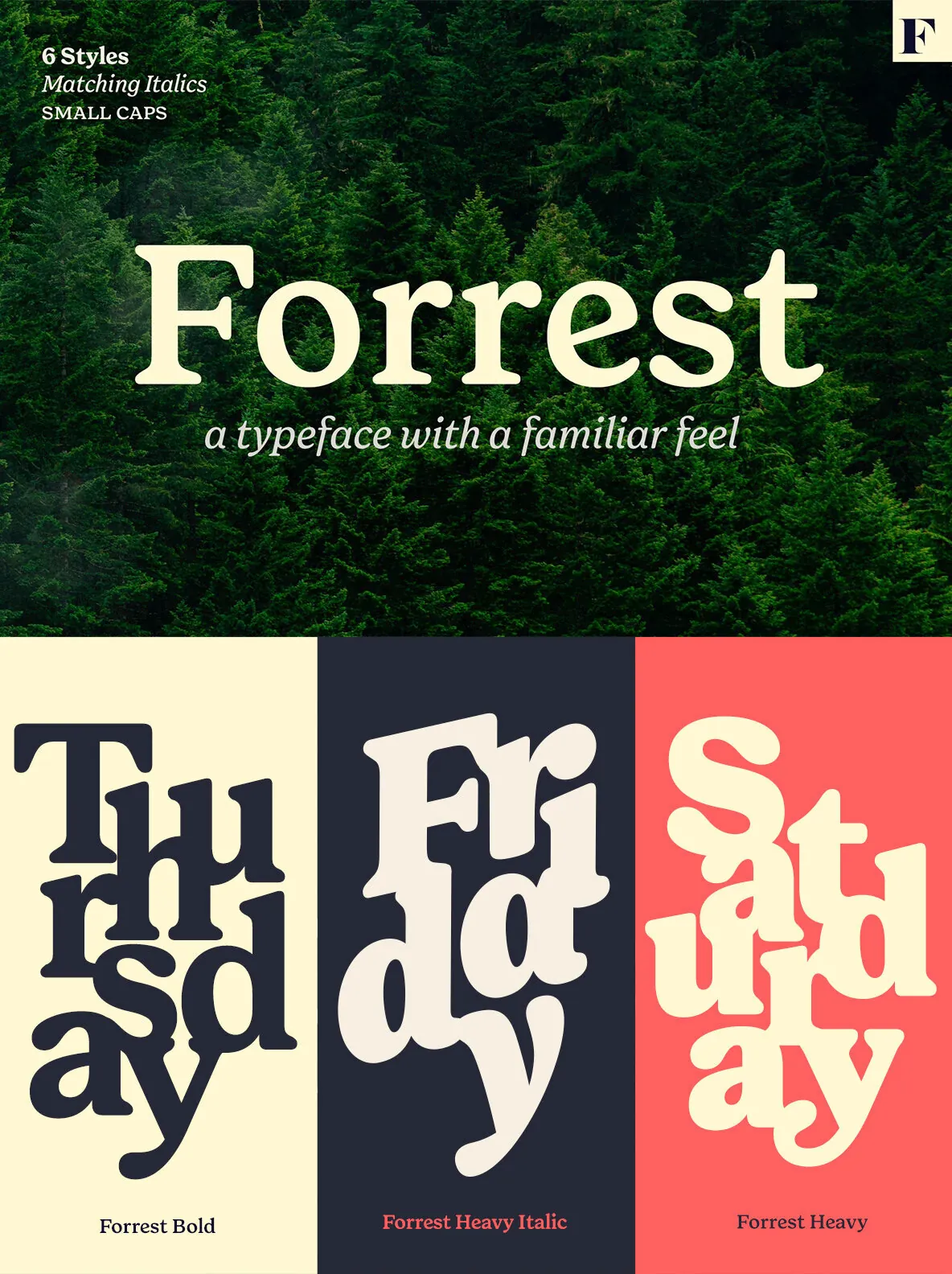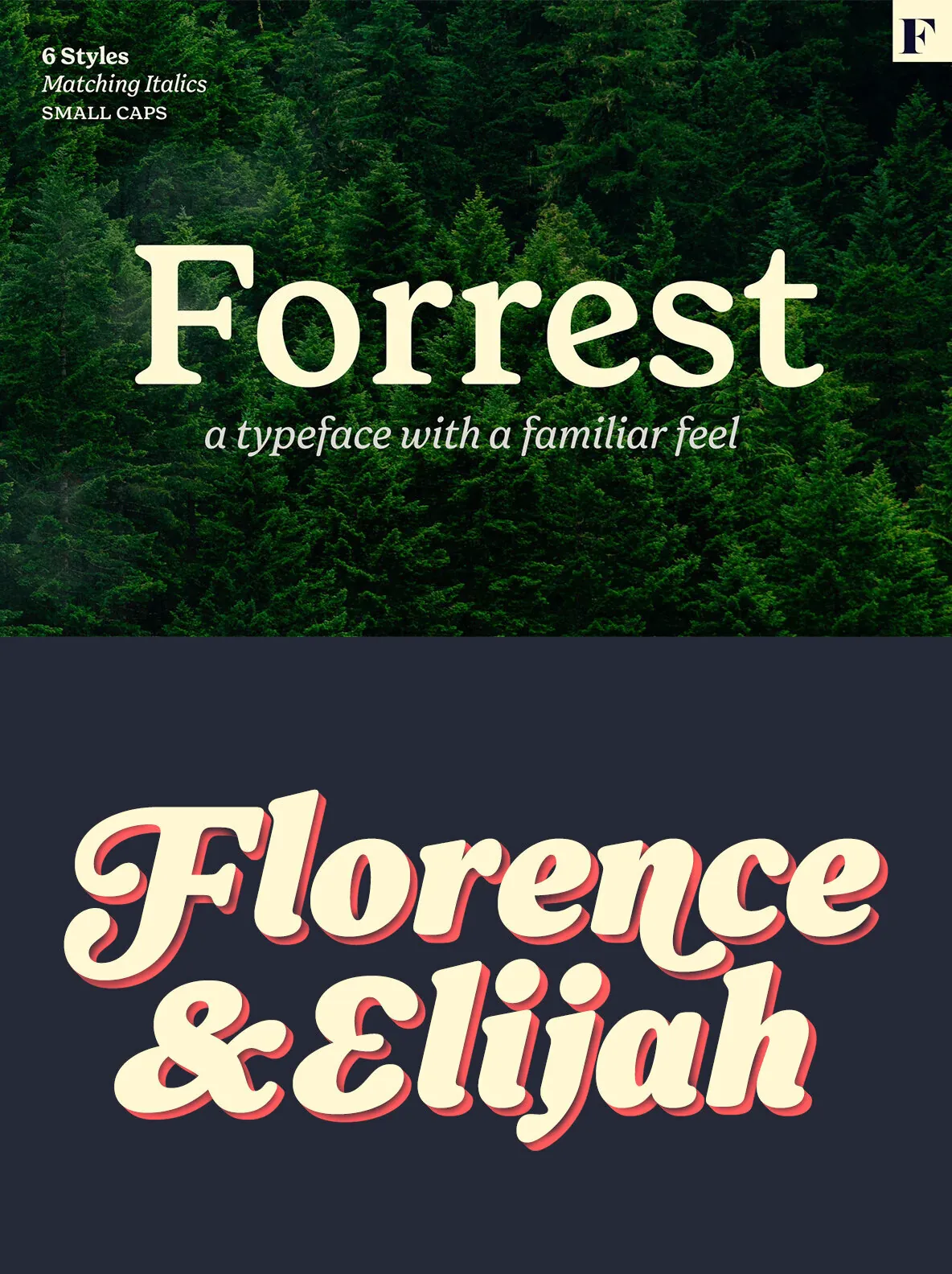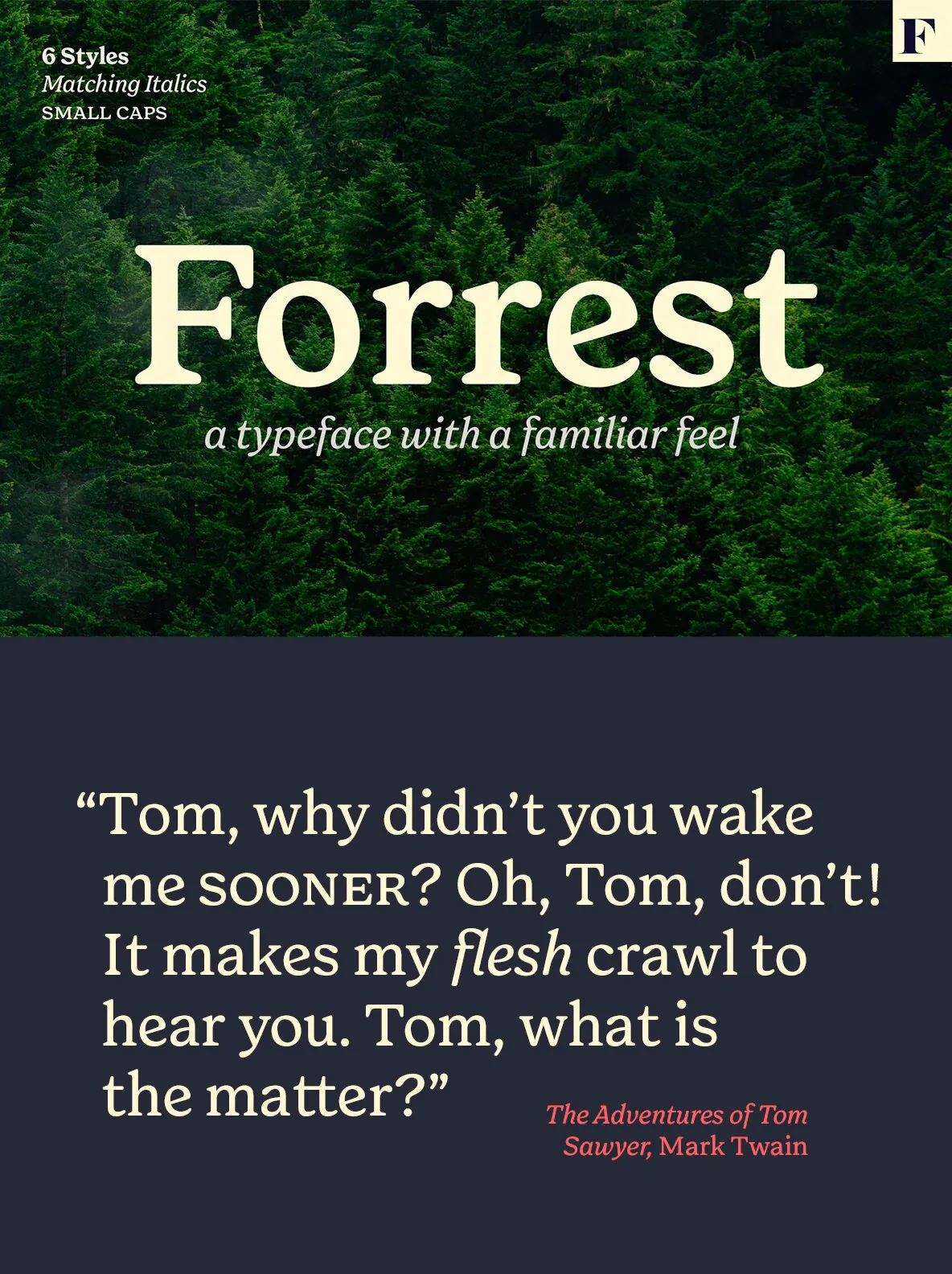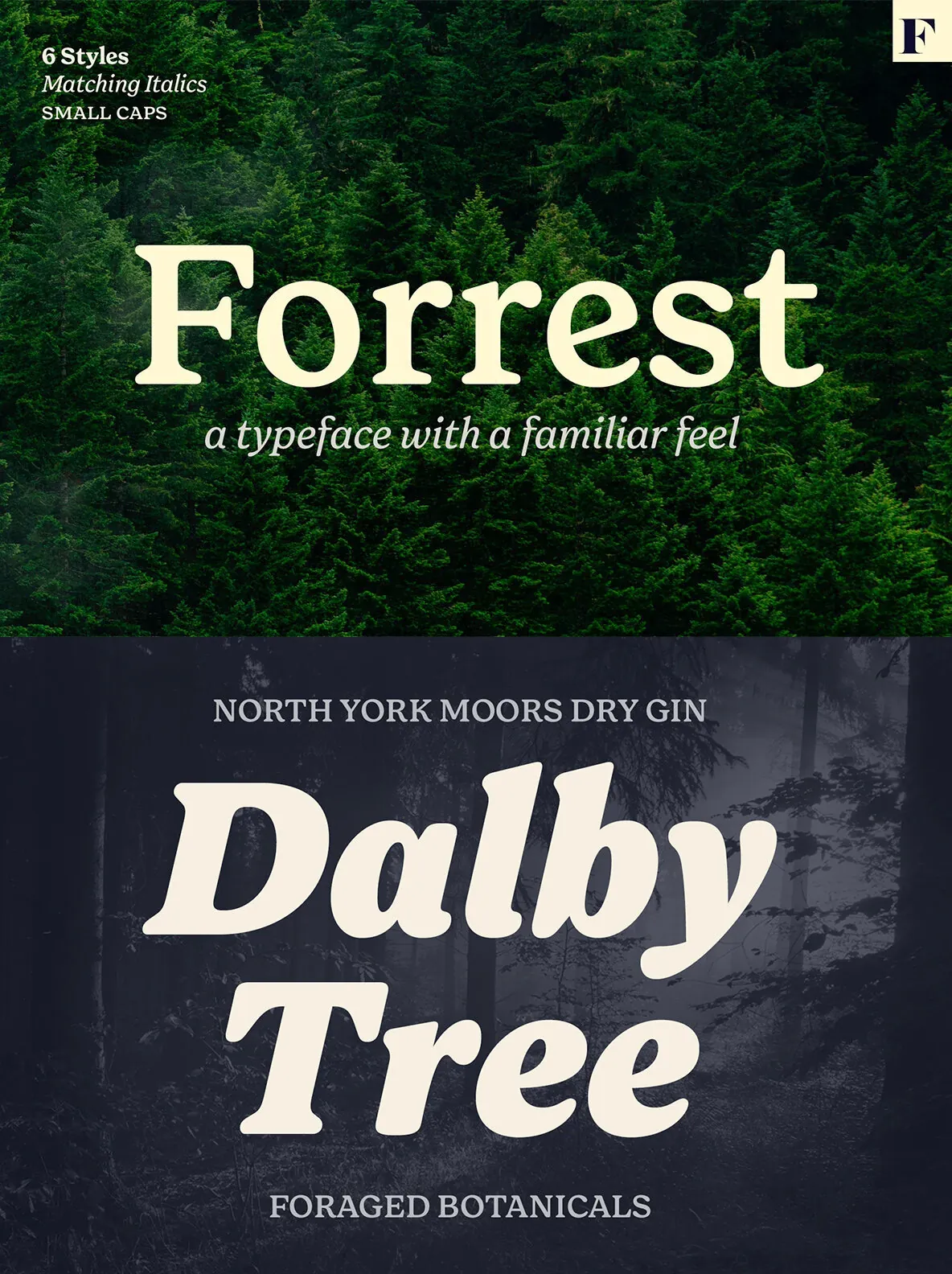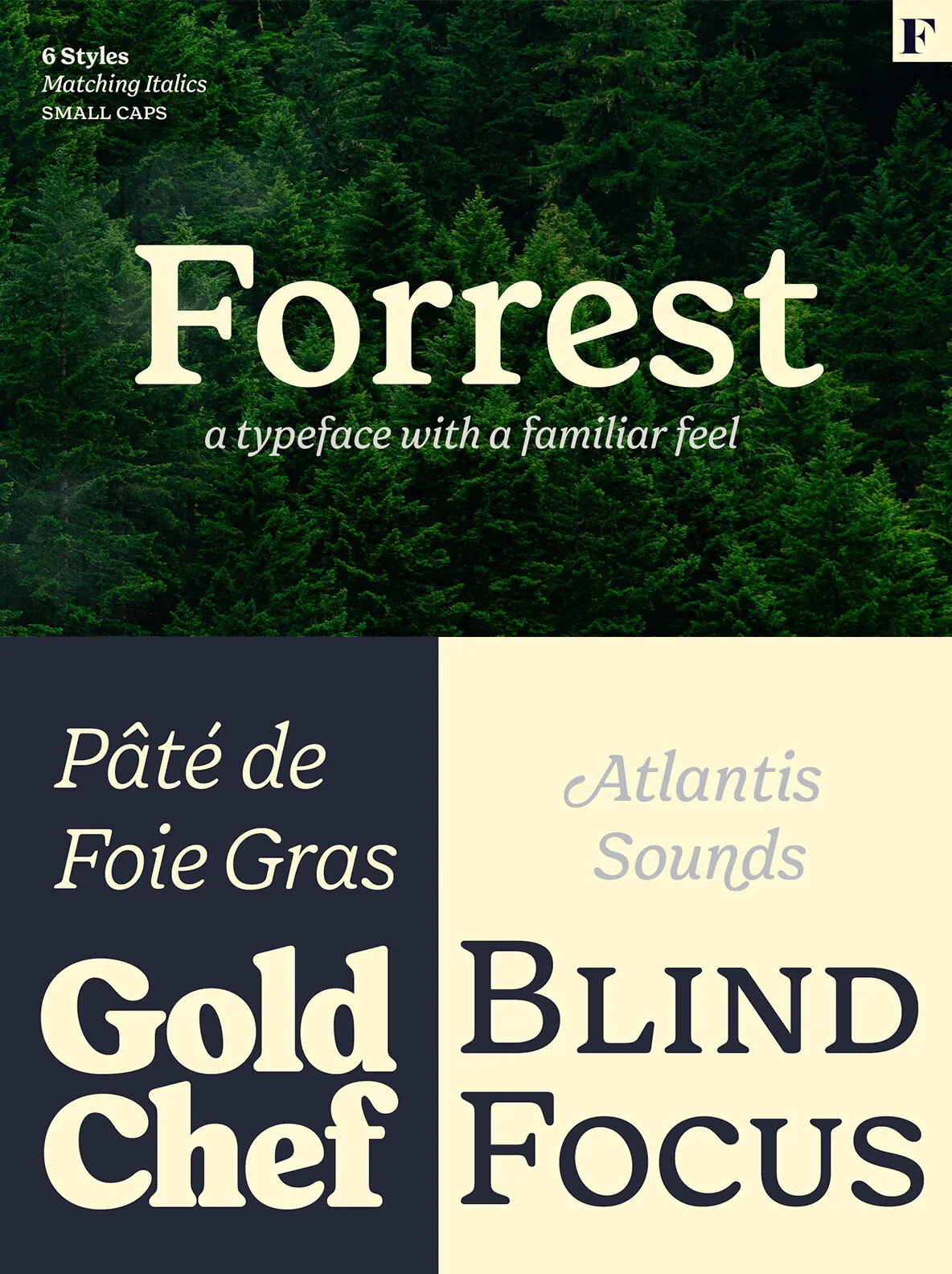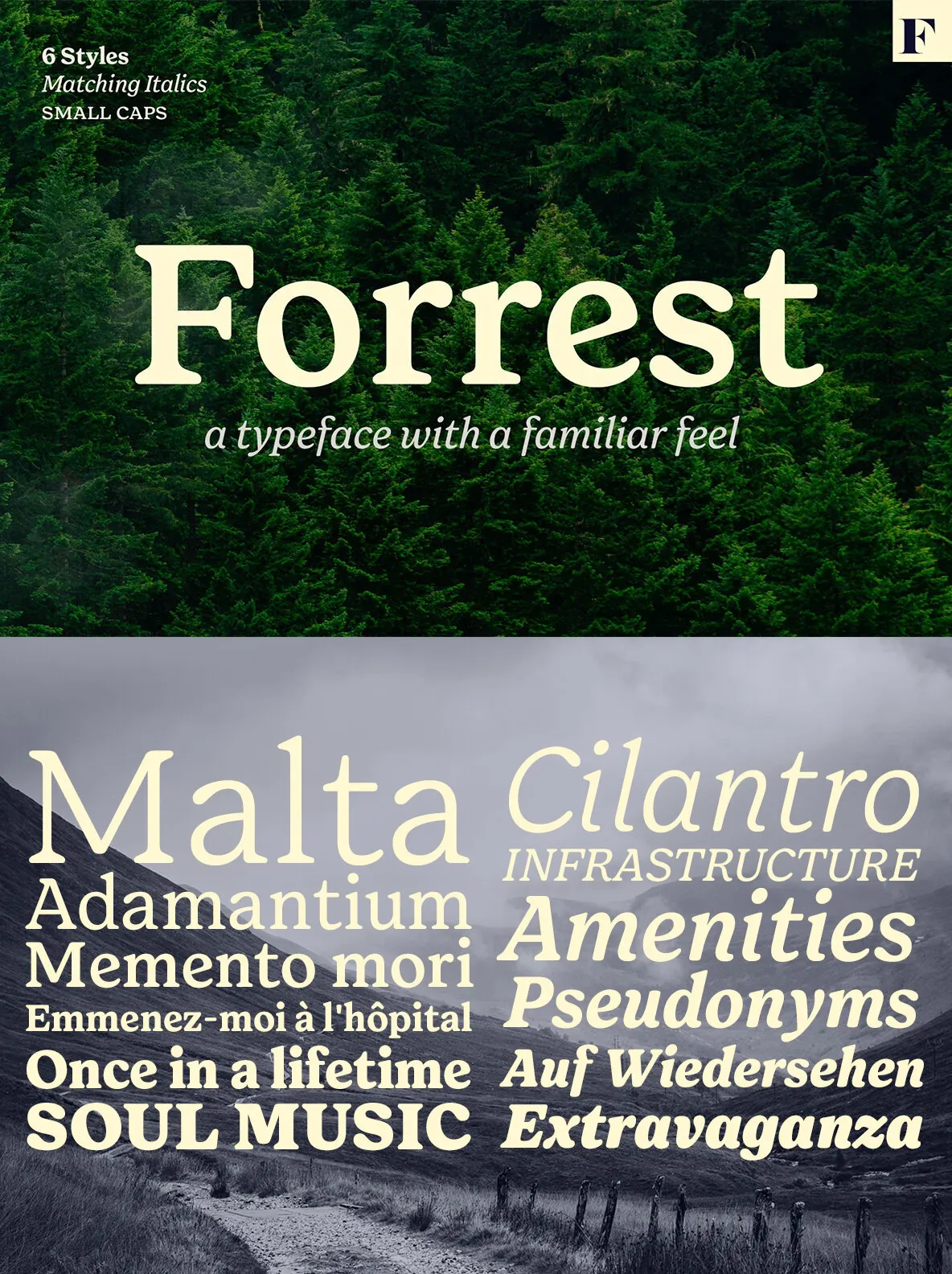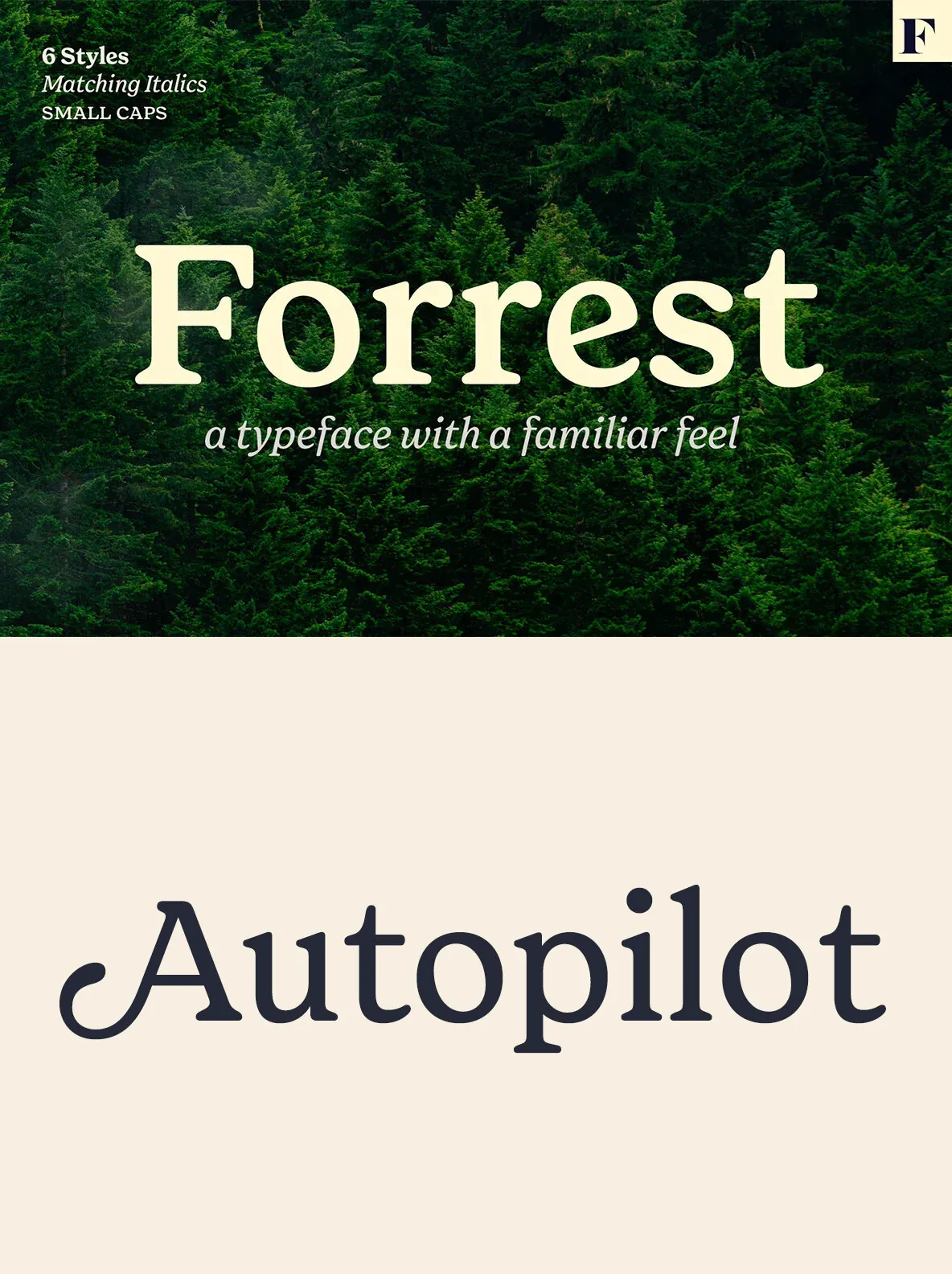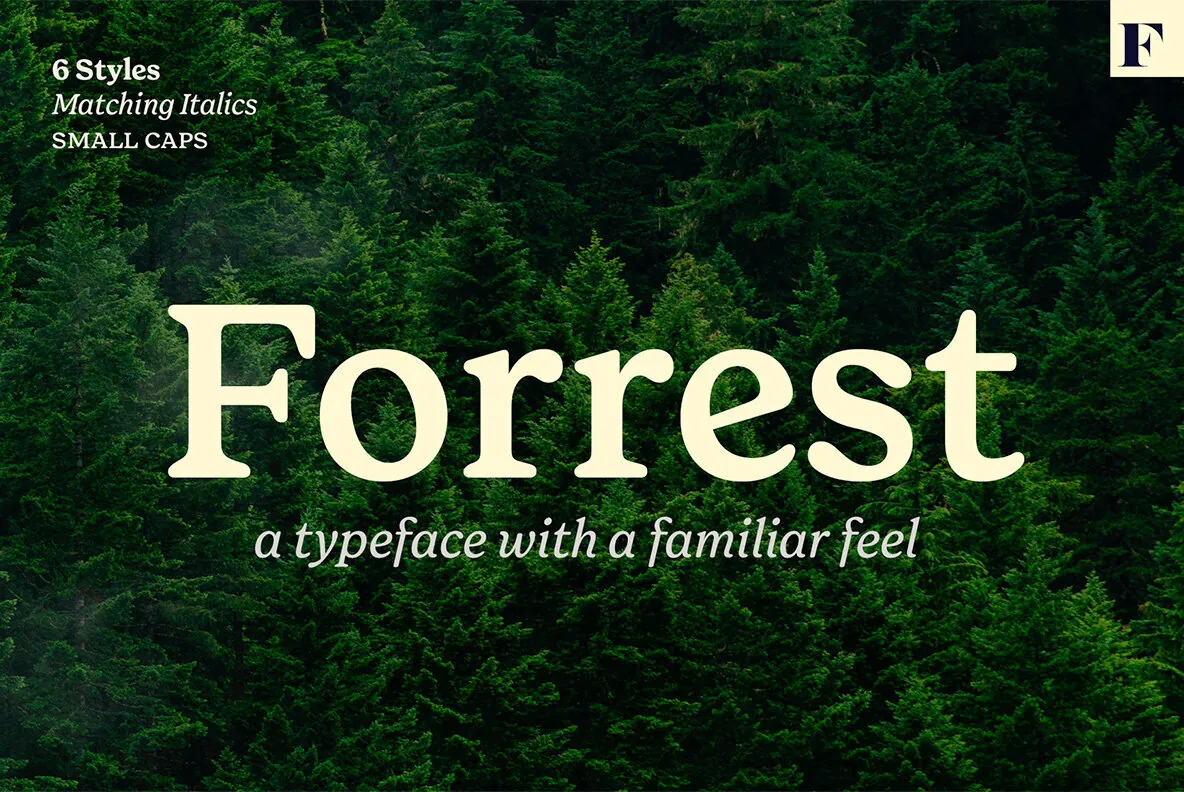
Forrest — Familiar Type, Real Character
Typographers—and clients alike—often chase novelty. Sometimes it shows up as self-conscious, made-you-look details. Other times it’s austere, detached minimalism. Either way, the constant search for something new can become the goal. Often, an old trick beats a bagful of new ones. What you may actually need is a good, reliable font family with soul—one that brings a comforting, familiar feel to editorial design, branding, and everyday typography.
That is where Forrest comes in. This type family grew from a lifelong passion for digging through old font archives in search of the good old type: simple, honest, and made with love. But Forrest is not stuck in the past. It is as savvy as fonts come, packed with smart features. Handsome swashes, cute small capitals, and old style figures add just enough flair for a sophisticated, contemporary approach to typography.